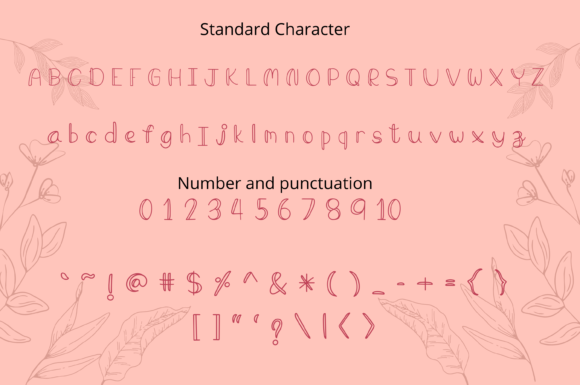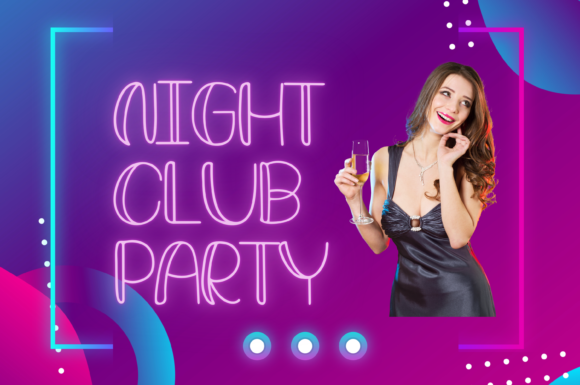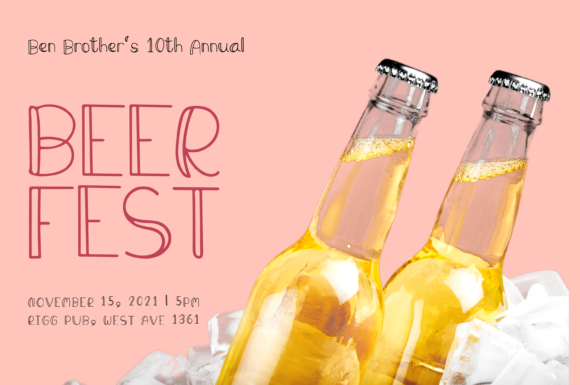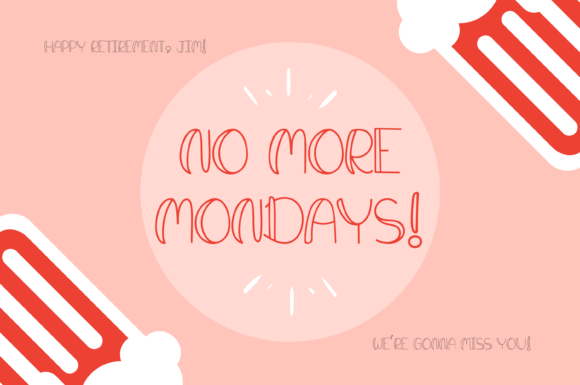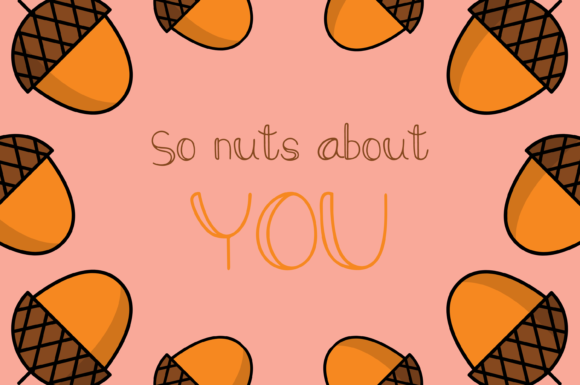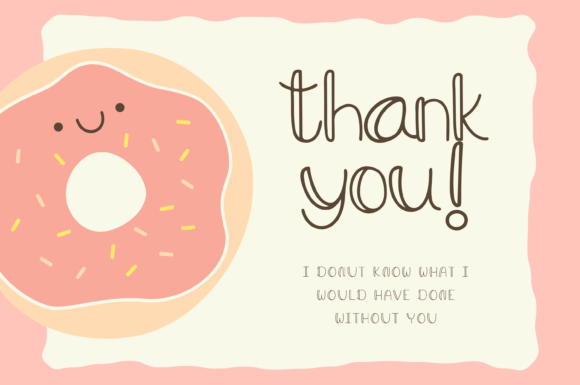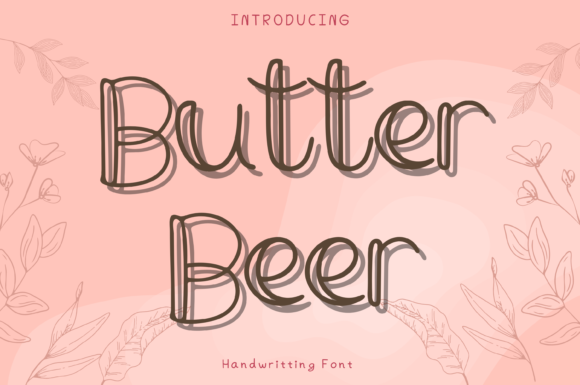
Introducing Butter Beer Style Font: A Whimsical and Clean Handwritten Delight
Are you a designer, crafter, or DIY enthusiast looking for a unique and captivating font to elevate your creative projects? Look no further than the Butter Beer Style Font! This charming, handwritten font is sure to add a touch of magic to your designs, making them stand out from the crowd.
What is Butter Beer Style Font?
Butter Beer Style Font is a whimsical and clean handwritten font, carefully crafted to bring a sense of wonder and playfulness to your designs. Its smooth, flowing lines and rounded edges evoke a sense of friendliness and approachability, making it perfect for a wide range of creative projects.
Key Features of Butter Beer Style Font
- Whimsical and Clean Design: The Butter Beer Style Font boasts a unique blend of whimsy and cleanliness, making it perfect for designs that require a touch of personality and sophistication.
- Handwritten Style: The font’s handwritten style gives it a personal and human touch, adding an emotional connection to your designs.
- Versatility: Butter Beer Style Font can be matched with an incredibly large set of projects, from digital designs to print materials, making it a versatile addition to your font collection.
Use Cases for Butter Beer Style Font
The Butter Beer Style Font is suitable for a wide range of creative projects, including:
- Digital Designs: Use the font in your social media graphics, blog posts, and website designs to add a touch of personality and whimsy.
- Print Materials: Add the font to your print materials, such as brochures, flyers, and business cards, to create a lasting impression.
- Crafting and DIY Projects: Use the font in your crafting and DIY projects, such as making signs, labels, and cards, to add a personal touch.
Why Choose Butter Beer Style Font?
With so many fonts available, why choose Butter Beer Style Font? Here are just a few reasons:
- Unique and Eye-Catching: The font’s unique design makes it stand out from more traditional fonts, ensuring your designs grab attention.
- Easy to Read: Despite its whimsical nature, the font remains easy to read, making it perfect for designs that require a clear message.
- Customizable: The font can be easily customized to fit your design needs, allowing you to adjust the size, color, and style to suit your project.
Tips for Using Butter Beer Style Font
To get the most out of Butter Beer Style Font, here are a few tips:
- Pair with Contrasting Fonts: Pair the font with contrasting fonts to create visual interest and hierarchy in your designs.
- Experiment with Colors: Try out different colors to find the perfect match for your design and brand.
- Use in Combination with Images: Use the font in combination with images to create a visually appealing and engaging design.
In conclusion, Butter Beer Style Font is a whimsical and clean handwritten font that can add a touch of magic to your designs. With its versatility, ease of use, and unique design, it’s perfect for designers, crafters, and DIY enthusiasts looking to elevate their creative projects. So why not give it a try and see how it can make your designs stand out?